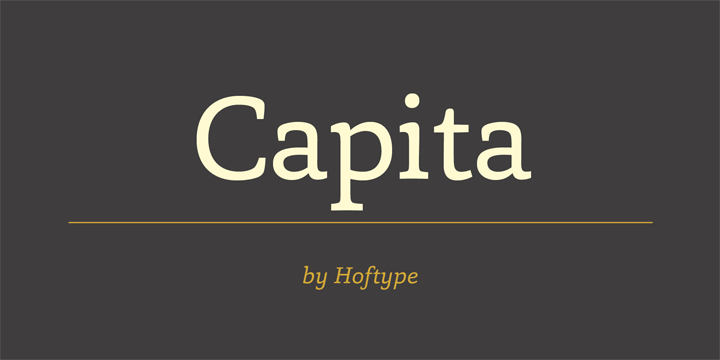
Capita is a typeface created by Dieter Hofrichter and published by Hoftype. This approach a new font style with elements strong in appearance but with controlled movements warm. You’ll find 12 fonts perfect for newspaper, logo, symbols etc.
Capita font details
Foundry: Hoftype
Released: 2013